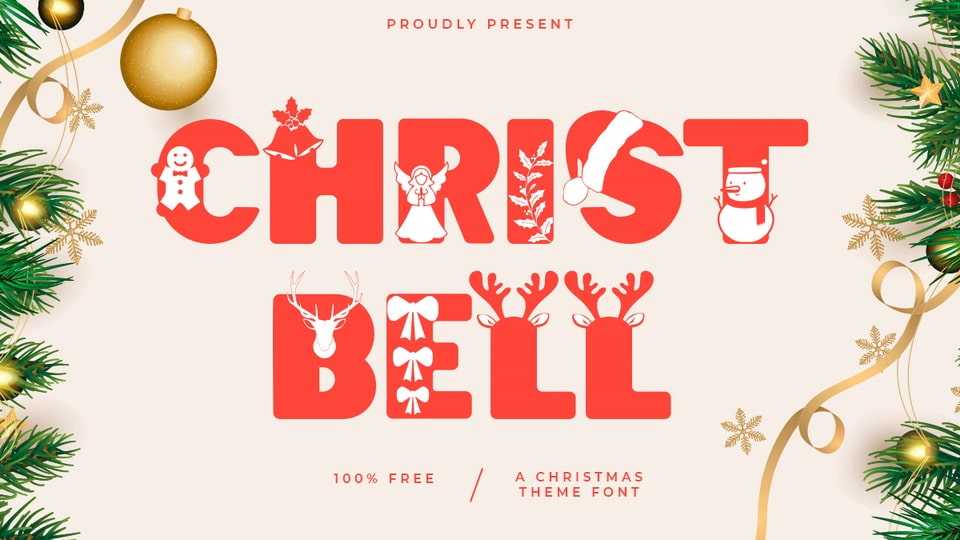
Download Christbell font, a festive display typeface made for the holiday theme. Christbell font is perfect for Christmas quotes, greeting cards, products, social media, and more.
Designer: Kong Font Studio